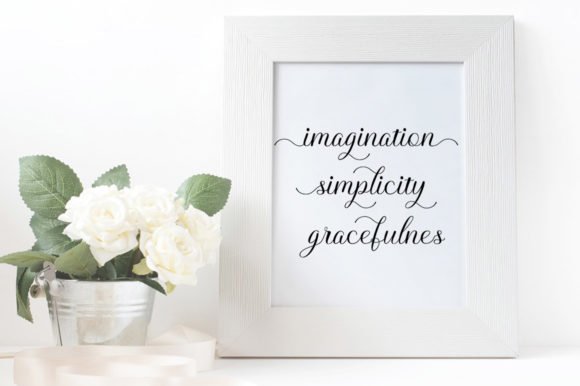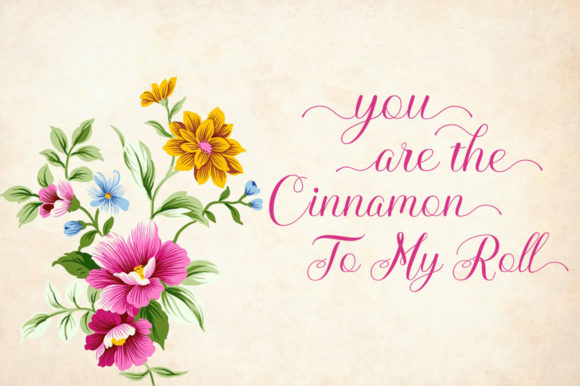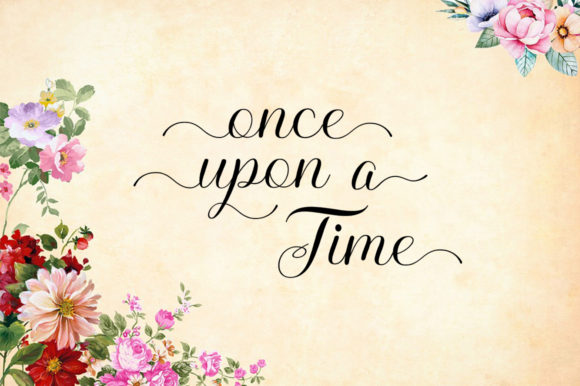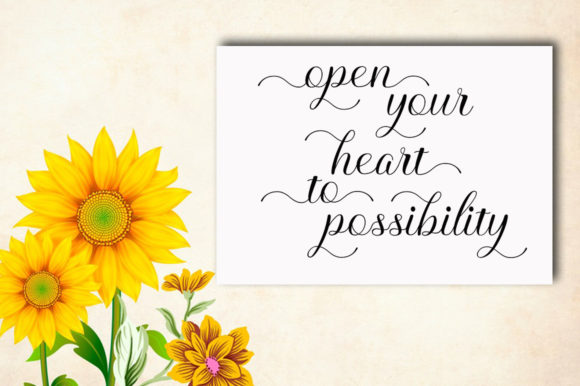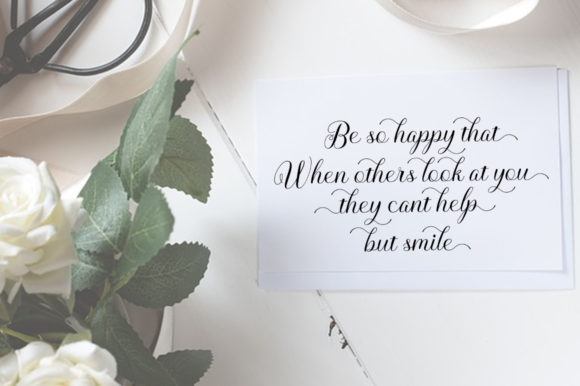
Vandora Font
About Vandora Font
Vandora is a energetic, dynamic font.
It’s suitable for many different purposes such as titles, signatures, logos, correspondence, wedding invites and more.